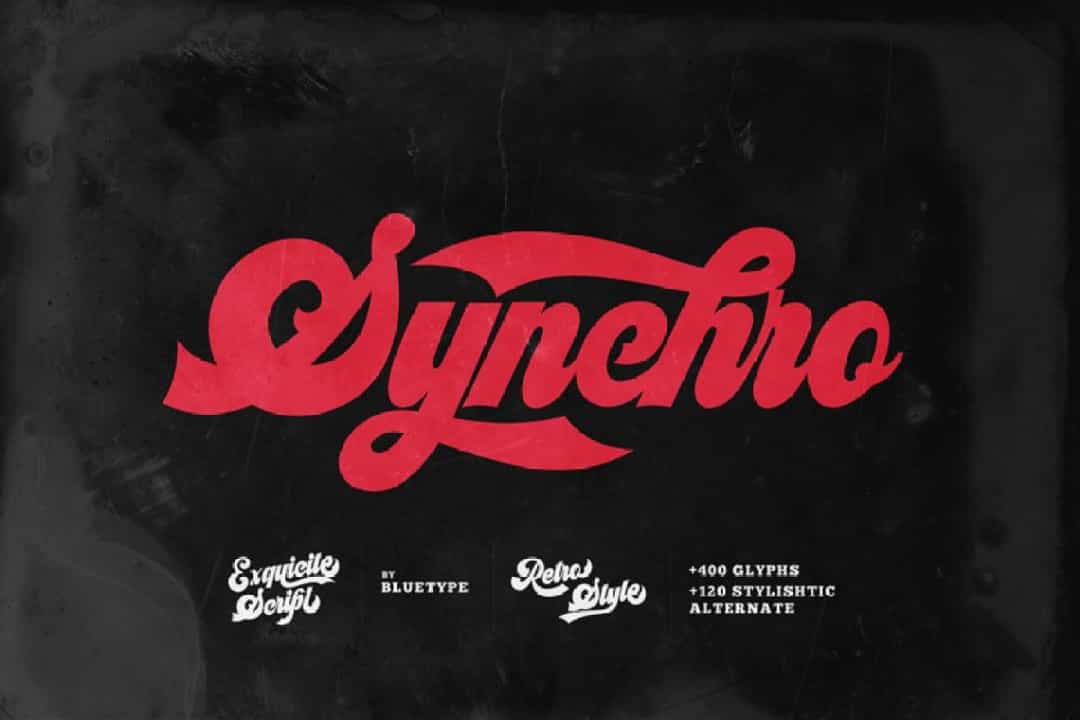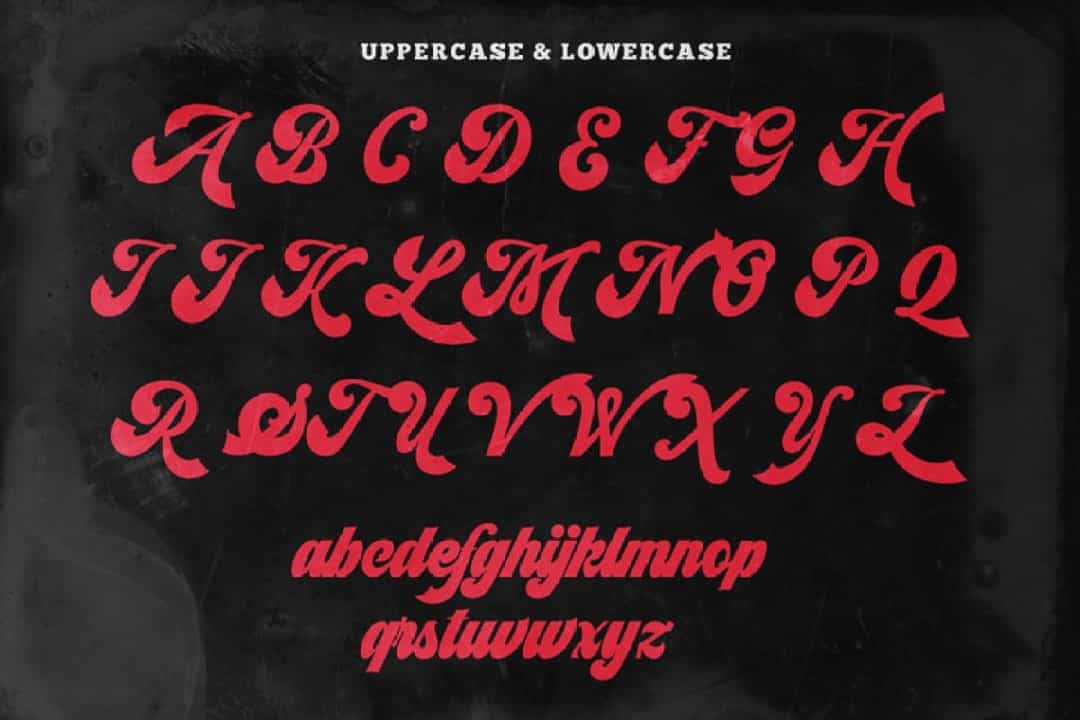
Synchro is a beautiful bold font that belongs to the retro style of the 70-80’s which will enable you to design retro graphics within a short time! If you use Synchro with other fashionable variants or swashes, your design will definitely be enhanced even further!